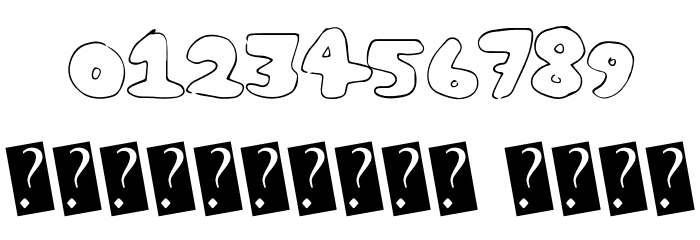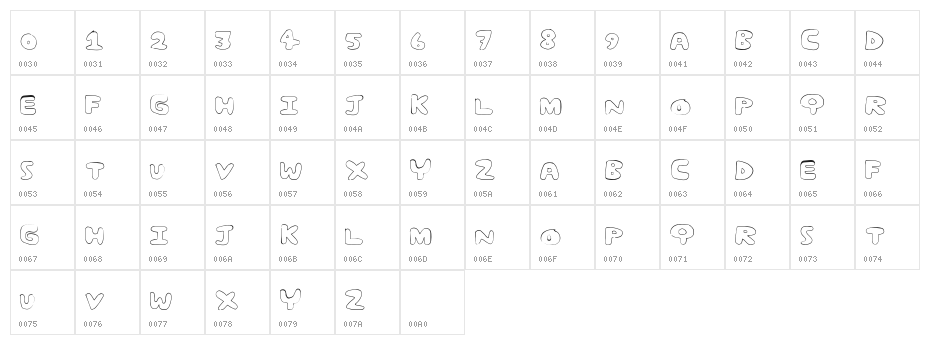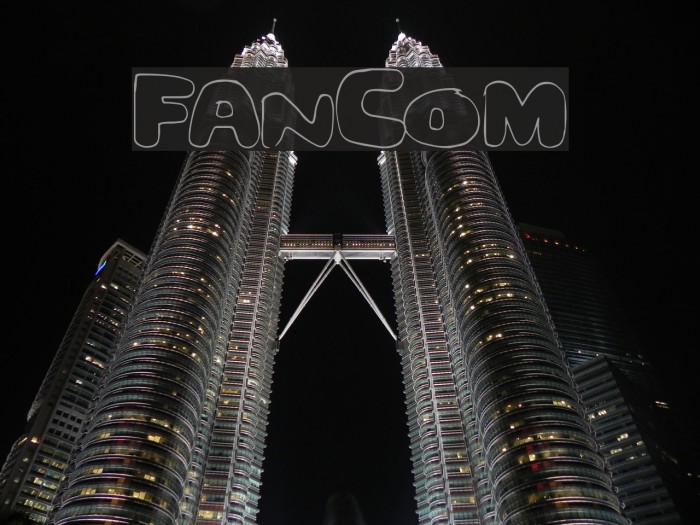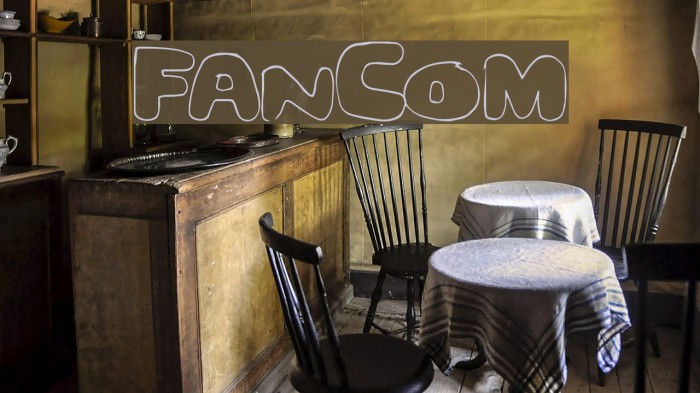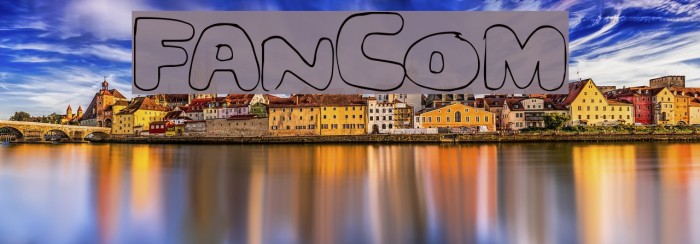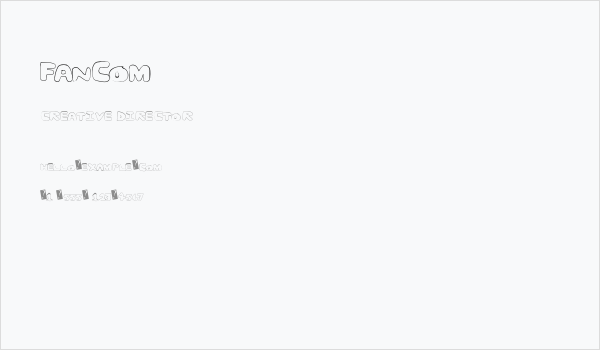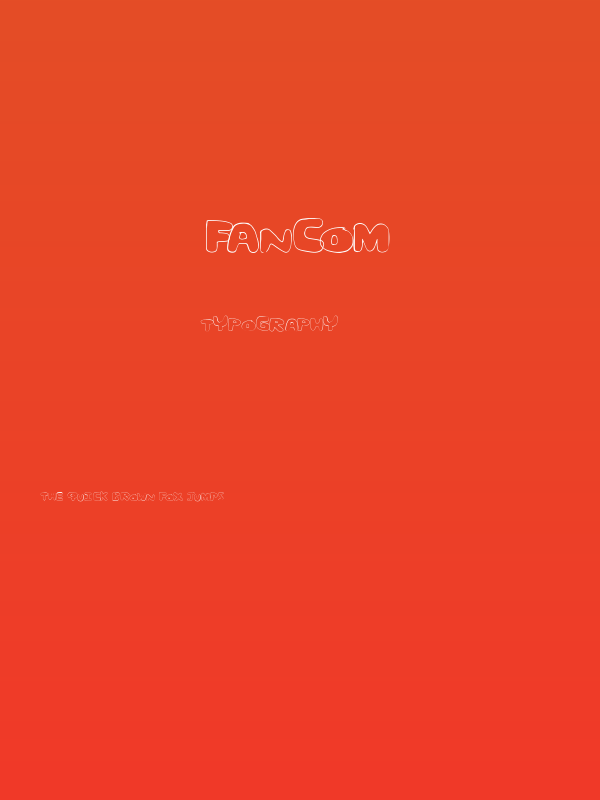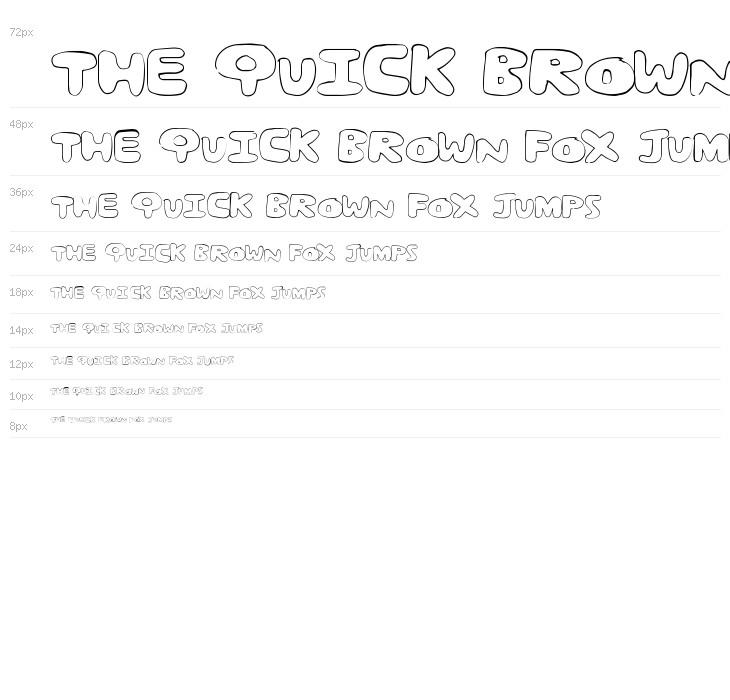
FanCom Font
FanCom Description
This playful and bold font features rounded, bubble-like characters that exude a sense of fun and whimsy. The letters are thick and uniform, with a consistent stroke width that gives them a cartoonish appearance. The characters are slightly condensed, enhancing their playful nature. The numbers and special characters follow the same style, maintaining the font's cohesive look. This font is ideal for projects that require a lighthearted and approachable feel, such as children's books, party invitations, or playful branding.
| Proposed Projects | Ideal for children's books, party invitations, playful branding, and cartoon-themed designs. |